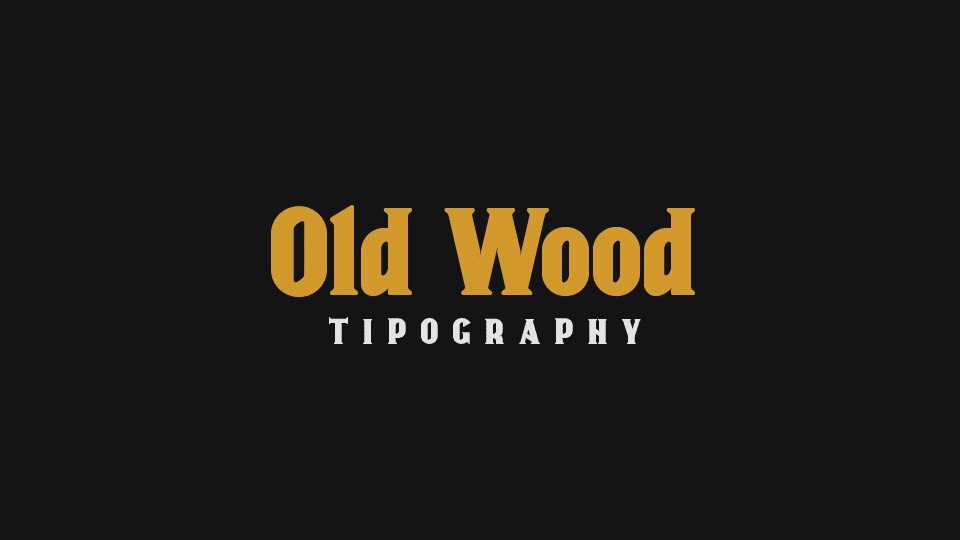
Download Old Wood font, a tall and thick typeface, a hybrid between Egyptian for the slight contrast of its lines, and ancient Roman for its finishes semi-rounded, plus incisions inspired by Art Nouveau.
Designer: Luis Jerez